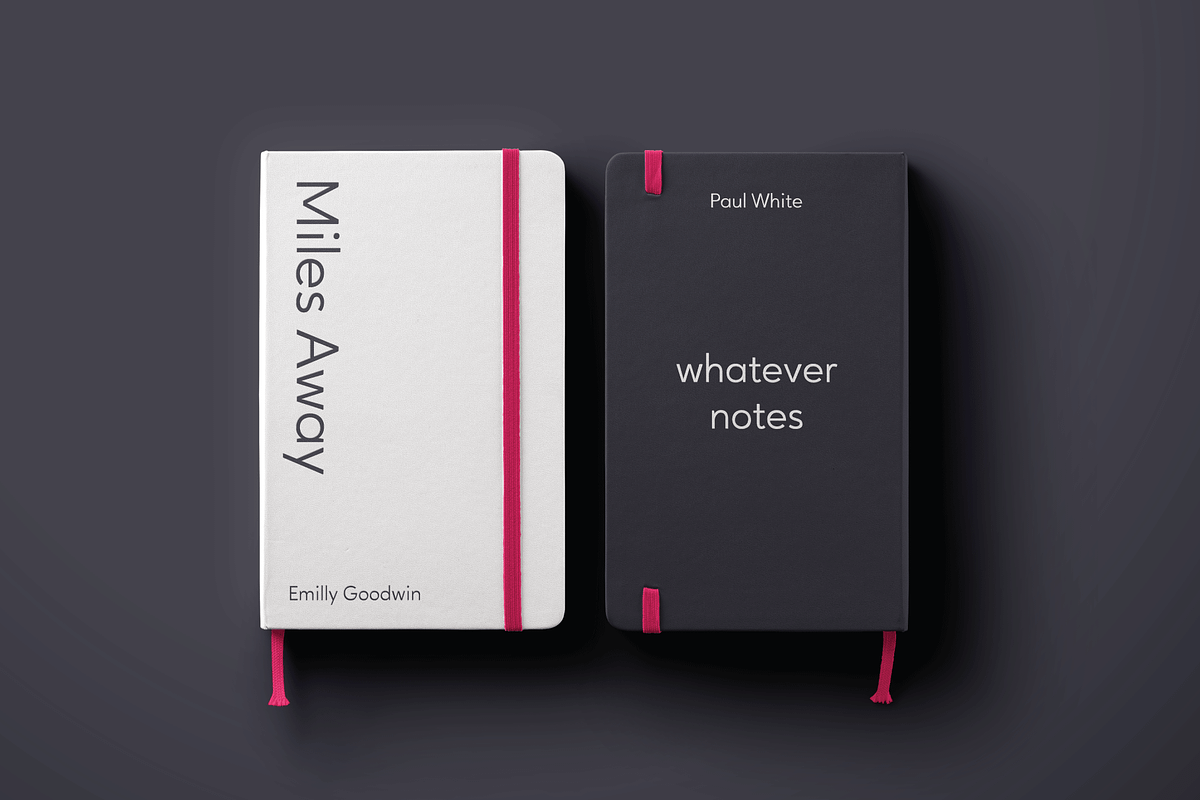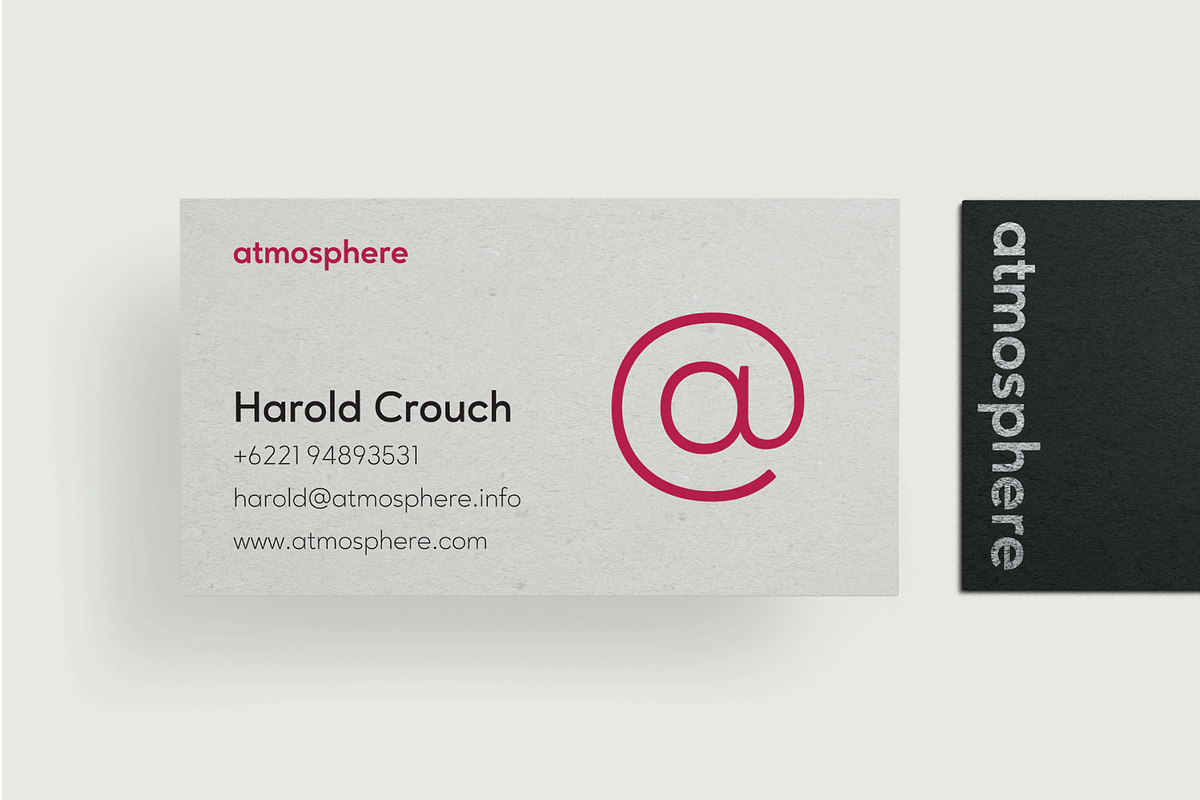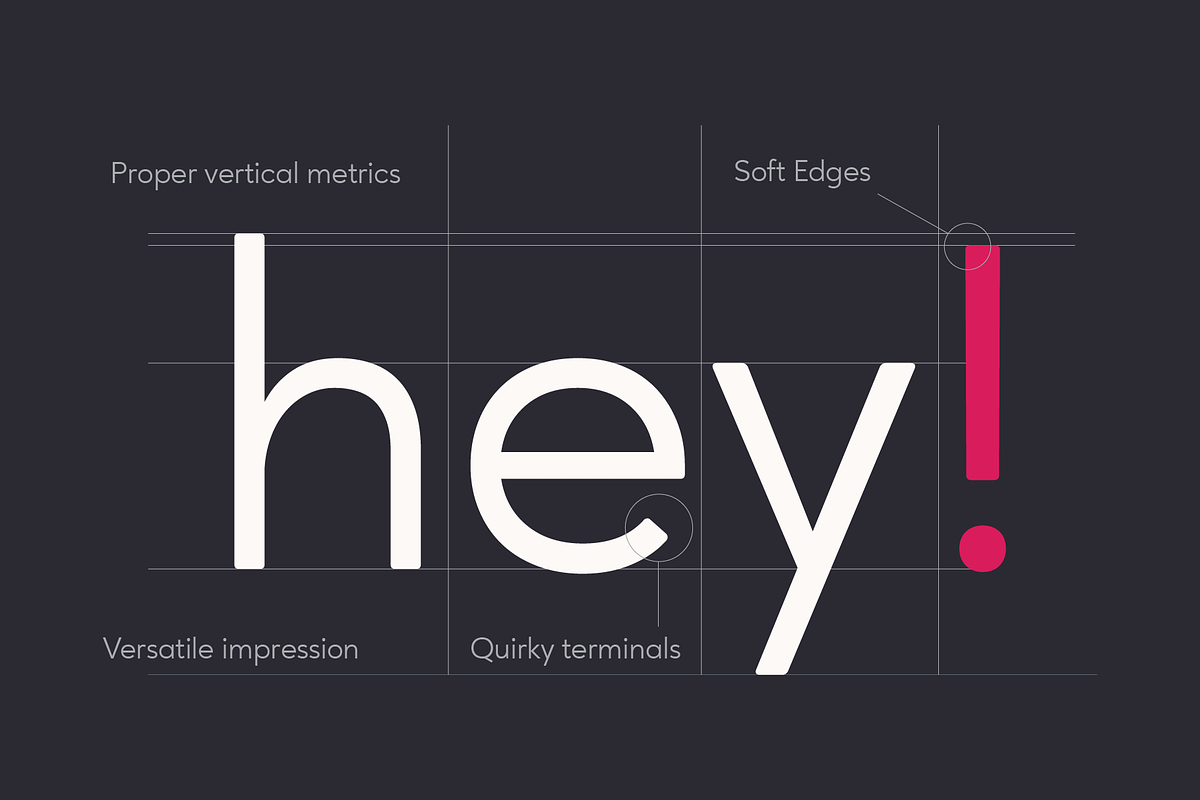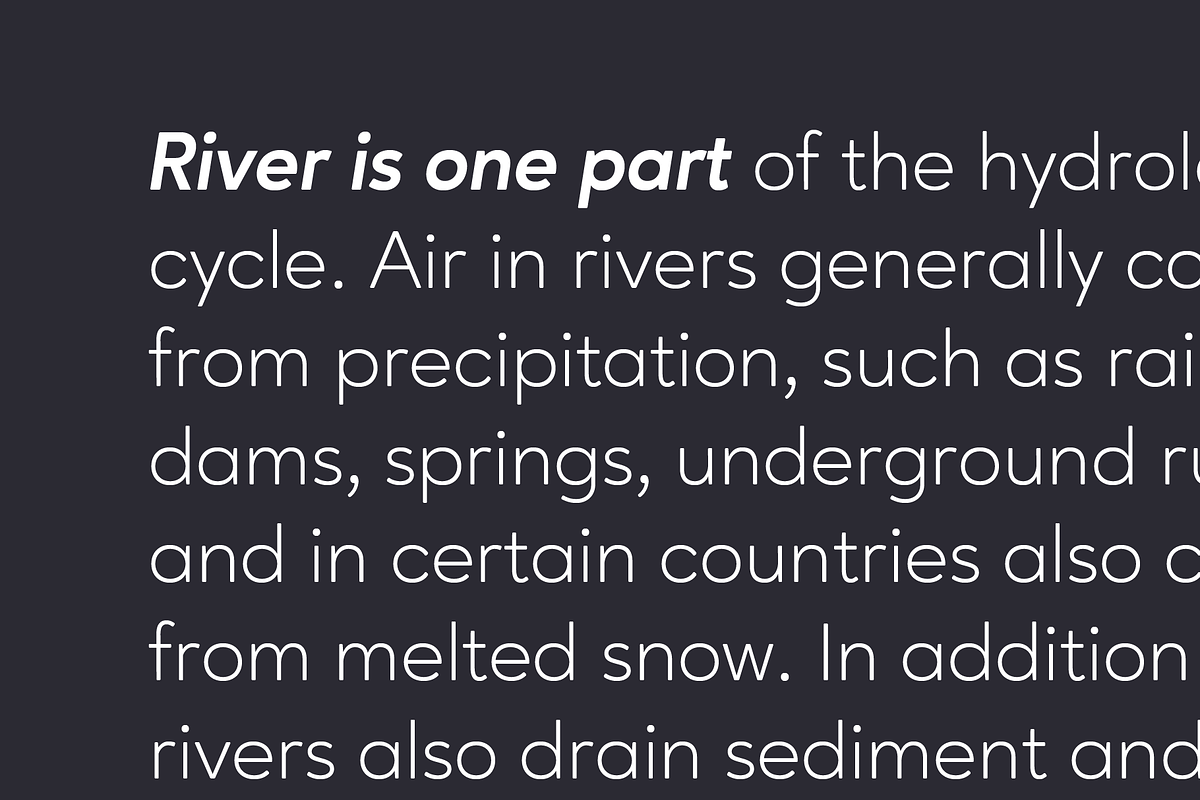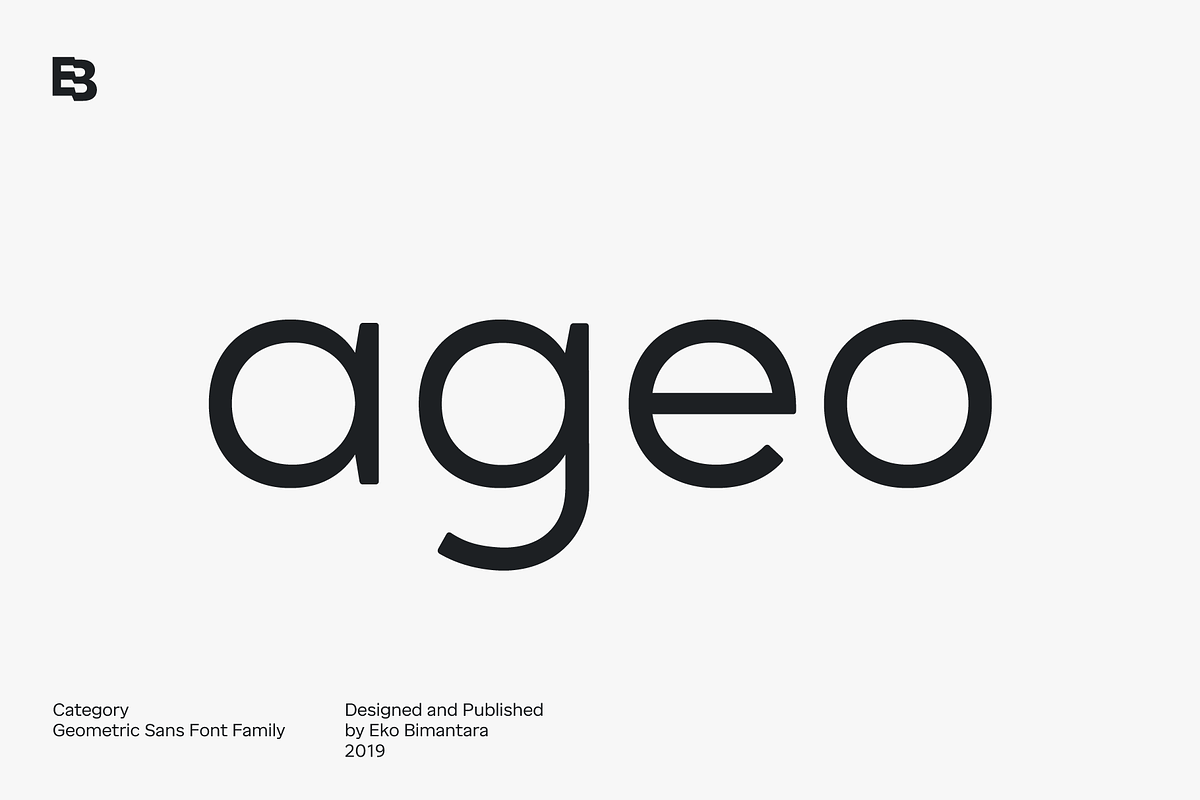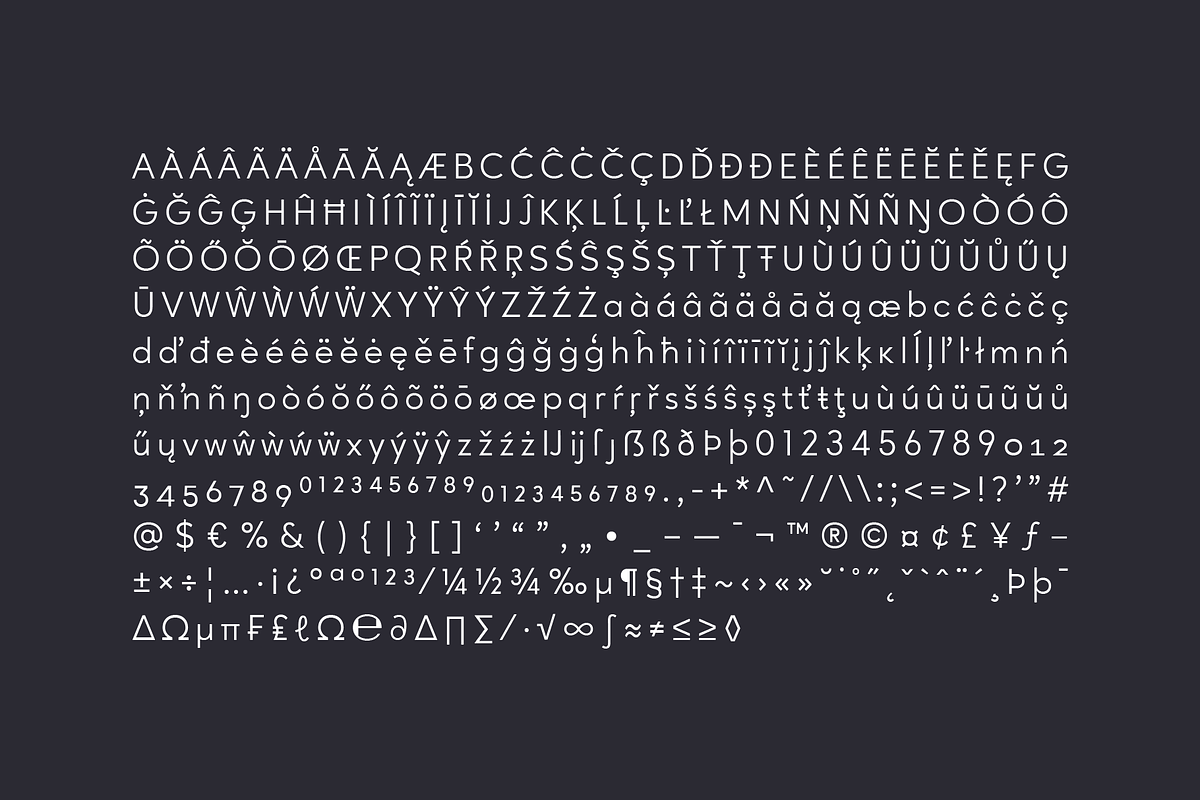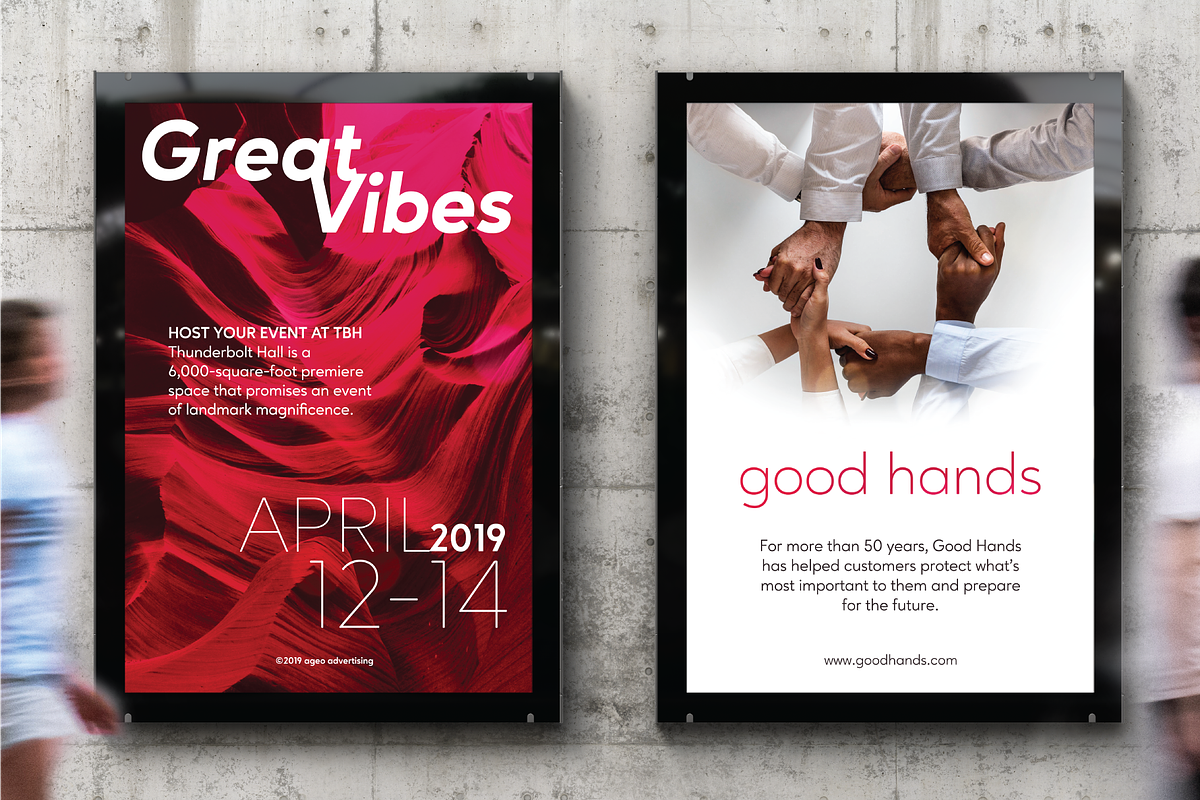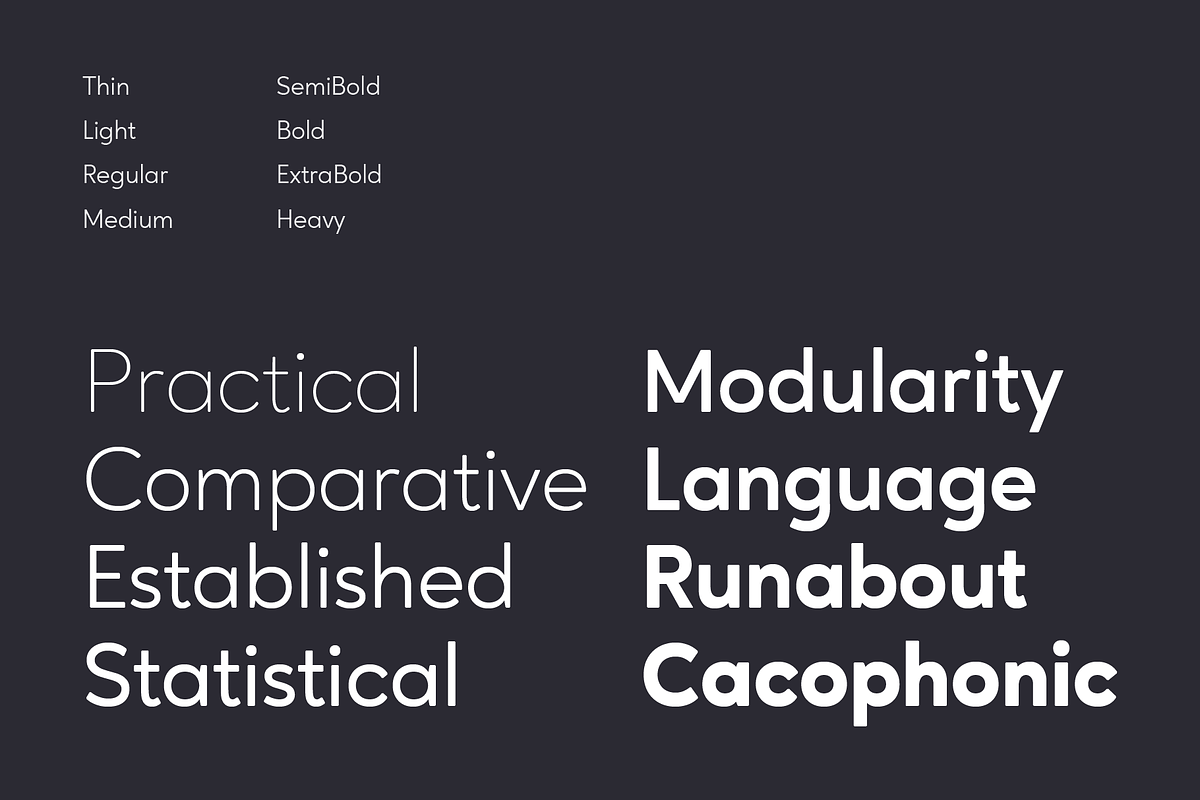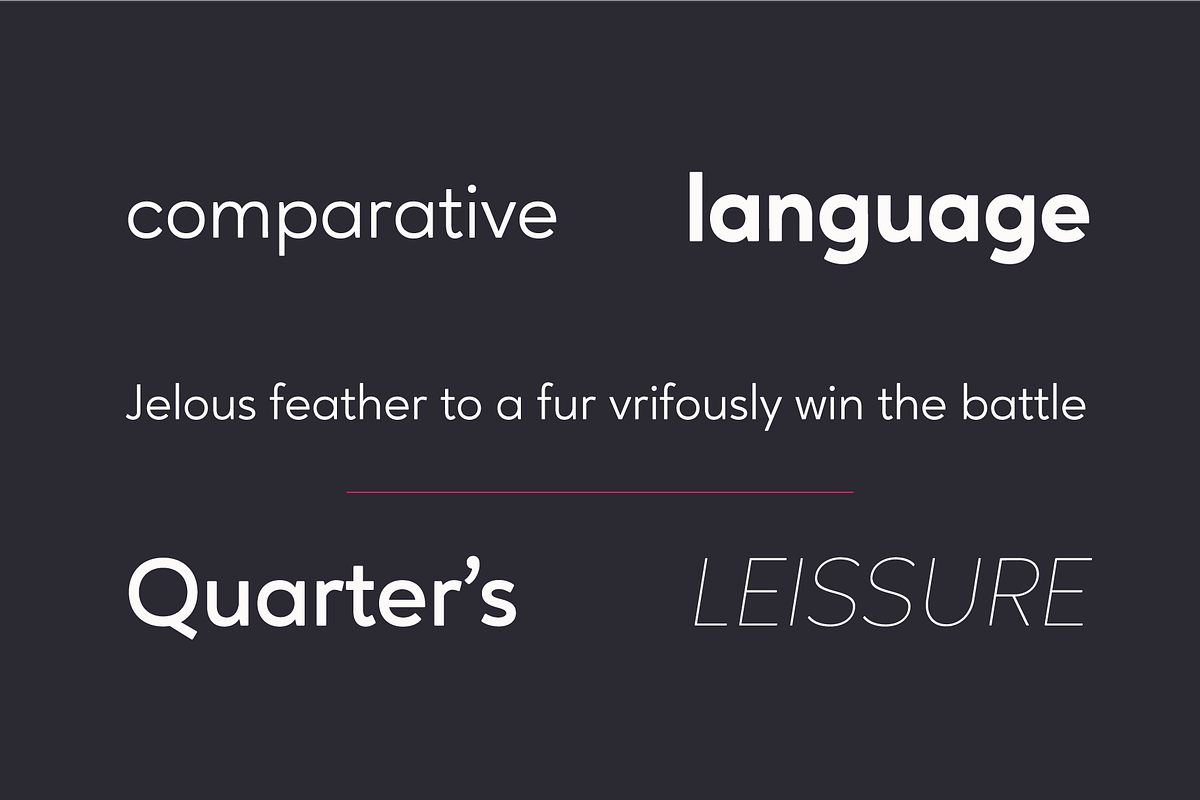
Ageo; 16 Geometric Font Family
Ageo is a soft geometric sans serif font family. Contain 8 weights from Thin to Heavy with matching Italics. It's a compromise of bauhaus and modern styles with a soft, minimalist, elegant, warmth, quirky, yet still purposed to be versatile and easy to read. Ageo was created to satisfy reading experience, it's compatible for text and also display, fit for headers, titles, posters, websites, brands, apps and other various design or creative projects.
It contains several OpenType features: Standard ligature, figures variation (old style, fraction, numerator, denominator), and also broad latin language support.